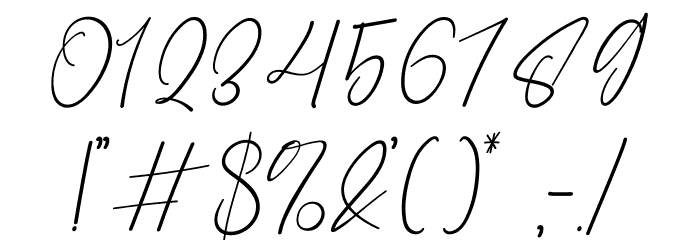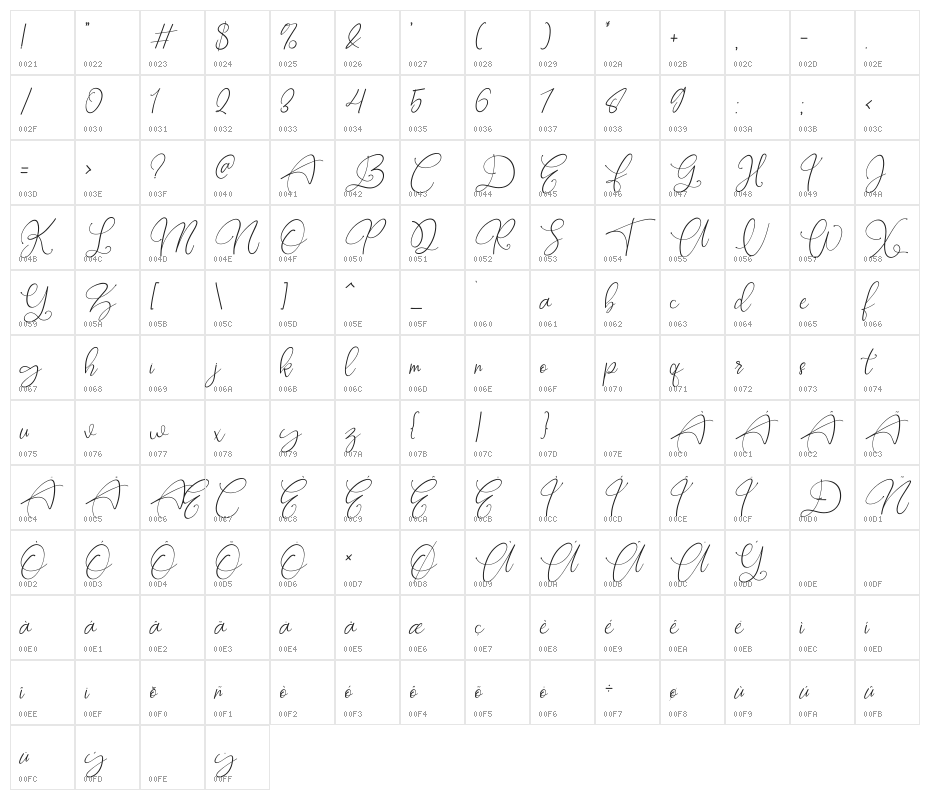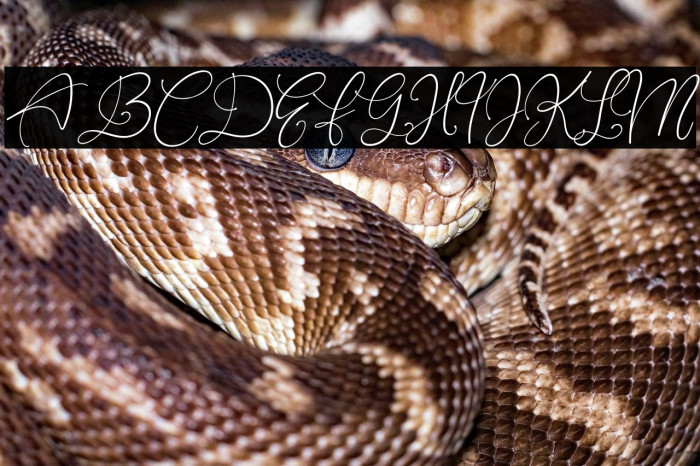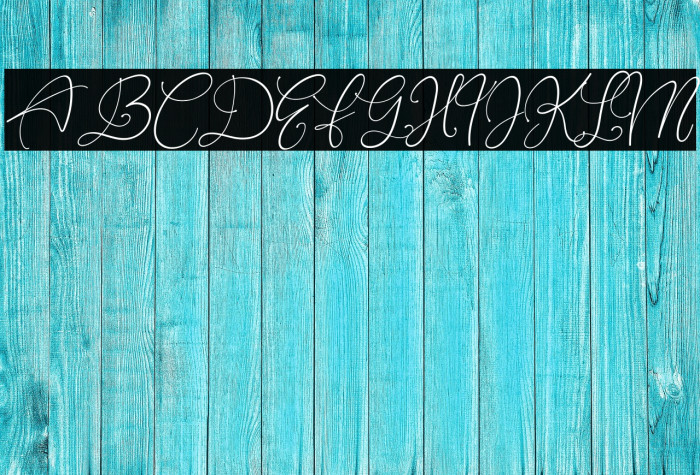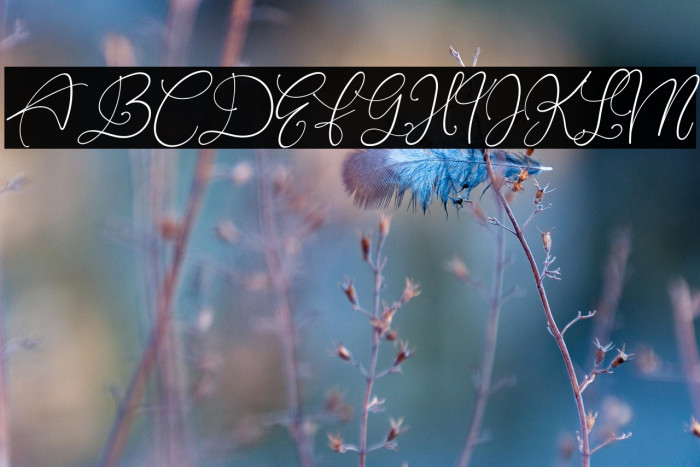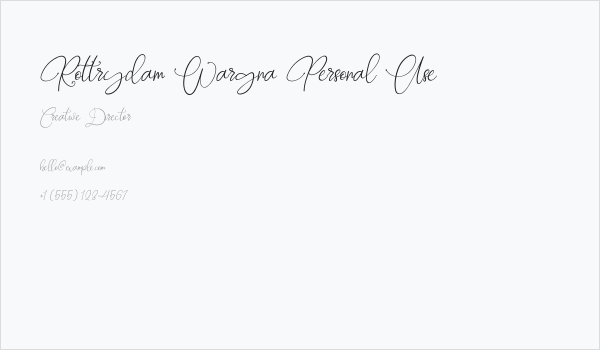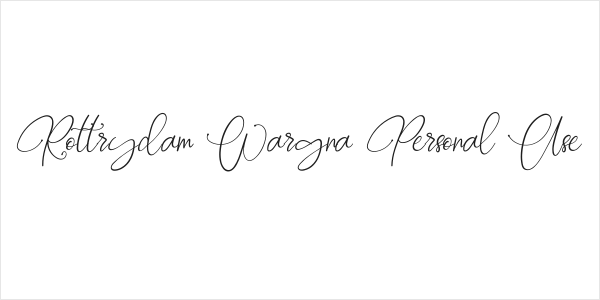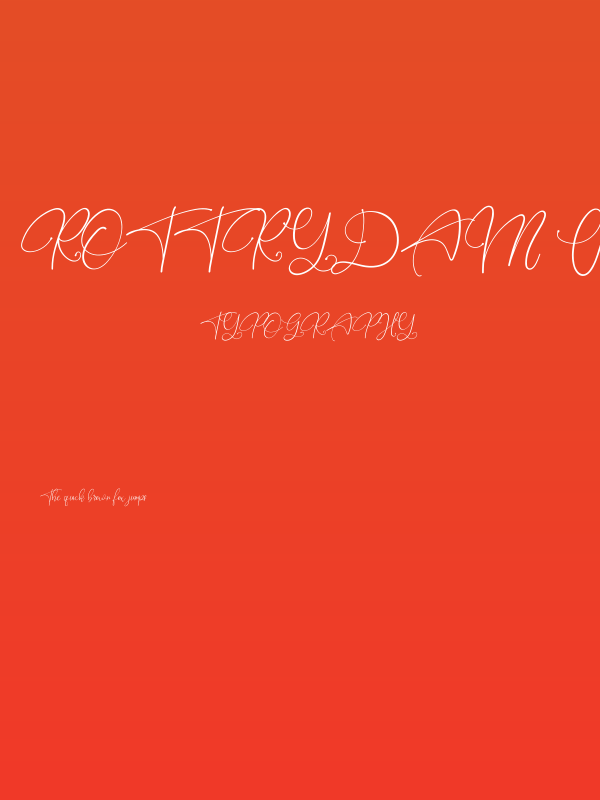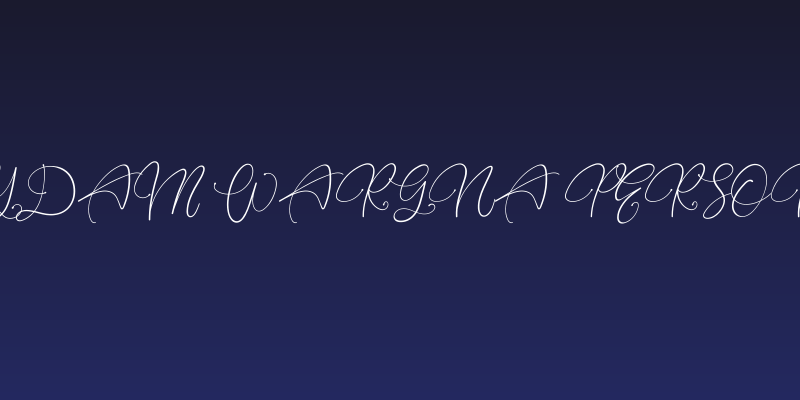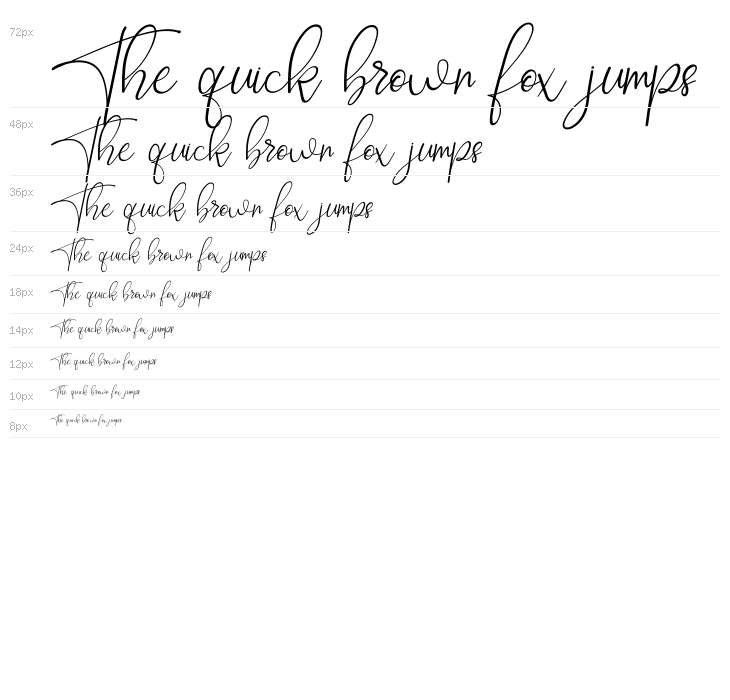
Rottrydam Wargna Personal Use Font
Rottrydam Wargna Personal Use Description
This font features an elegant, flowing script style that mimics the fluidity of cursive handwriting. Each letter is intricately designed with loops and swirls, giving it a sophisticated and artistic appearance. The uppercase letters are particularly ornate, with extended flourishes that add a touch of drama and flair. The lowercase letters maintain a consistent style, with smooth connections between characters, enhancing the handwritten feel. The numerals and special characters are equally stylized, ensuring a cohesive look across all text elements. This font is perfect for projects that require a personal, elegant touch.
| Use Case | Logos, Invitations, Personal branding |
| Proposed Projects | Ideal for wedding invitations, greeting cards, personal branding, and elegant logos. |